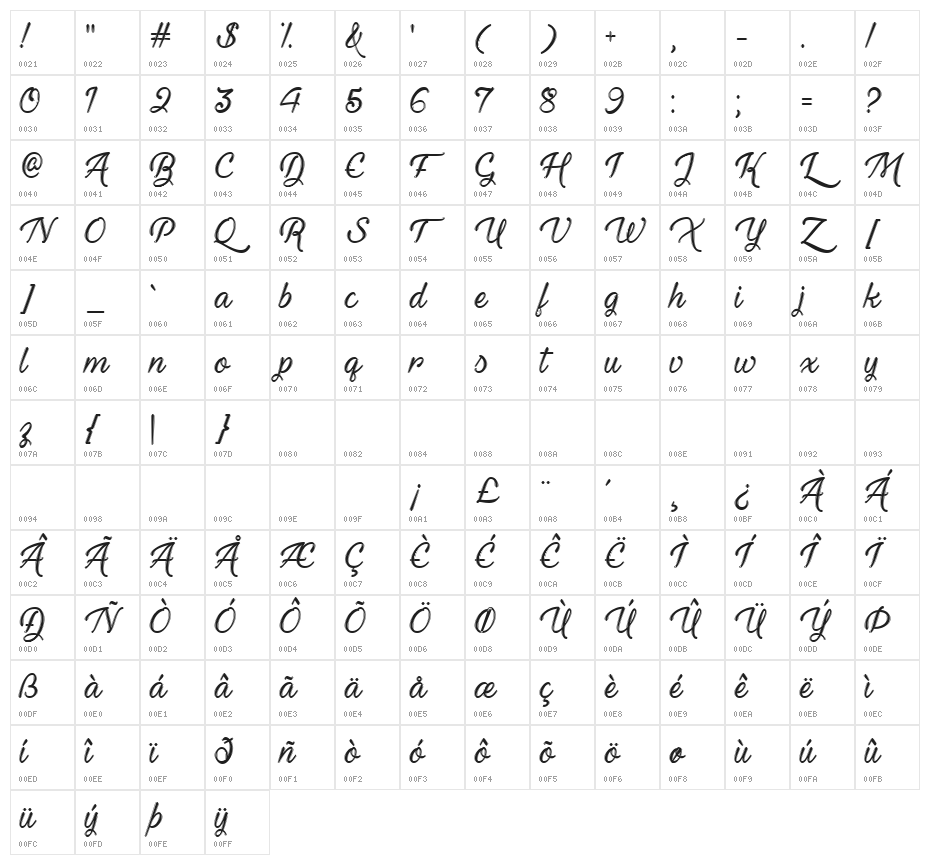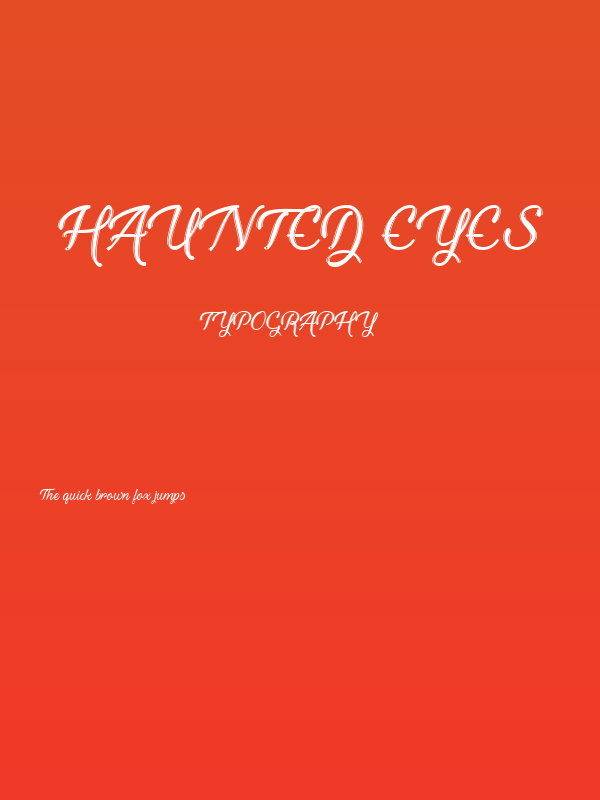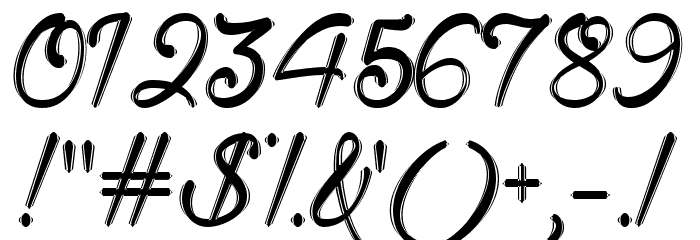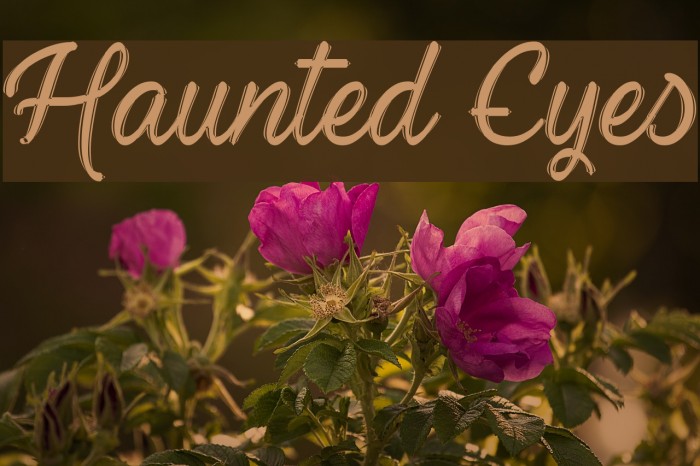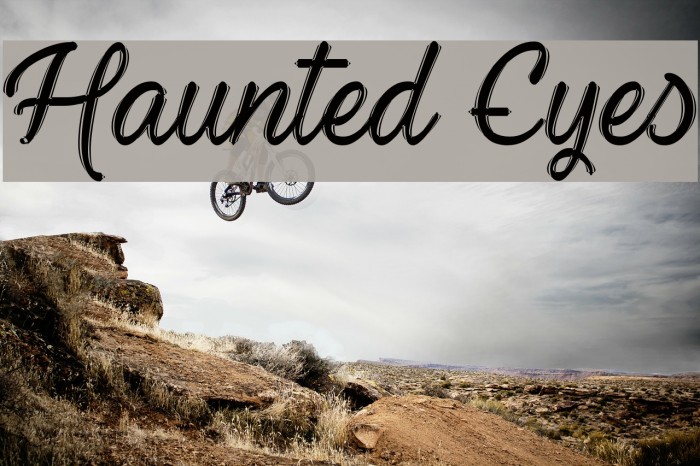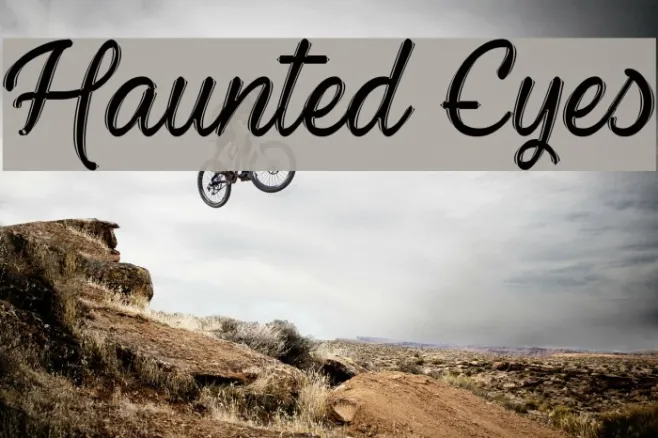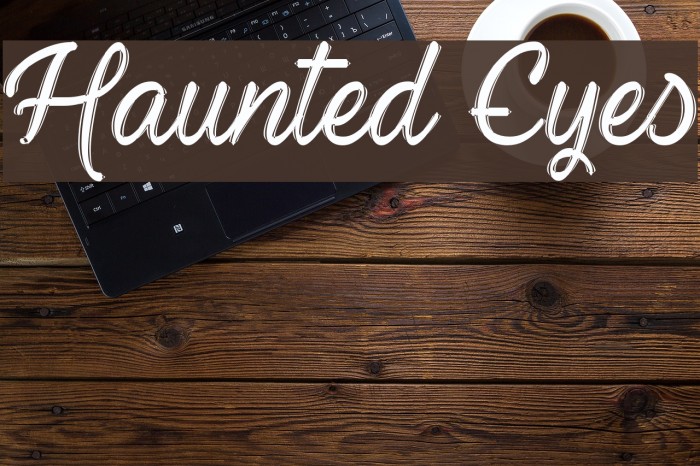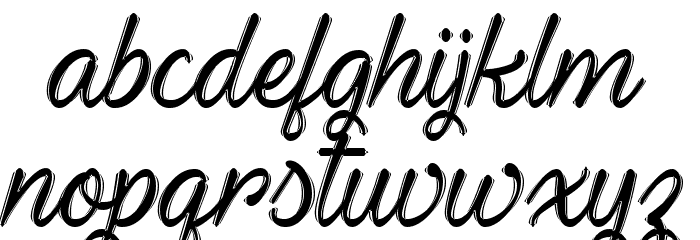
Haunted Eyes Font
Haunted Eyes Description
This font features a distinctive and elegant script style, characterized by its flowing, cursive letterforms. The uppercase letters are bold and sweeping, with intricate loops and flourishes that add a touch of sophistication. The lowercase letters maintain a consistent flow, with smooth connections between each character, creating a harmonious and fluid appearance. The numerals are equally stylized, with a graceful curvature that complements the overall aesthetic. Special characters are designed with the same attention to detail, enhancing the font's decorative appeal. This font is ideal for projects that require a touch of elegance and flair.